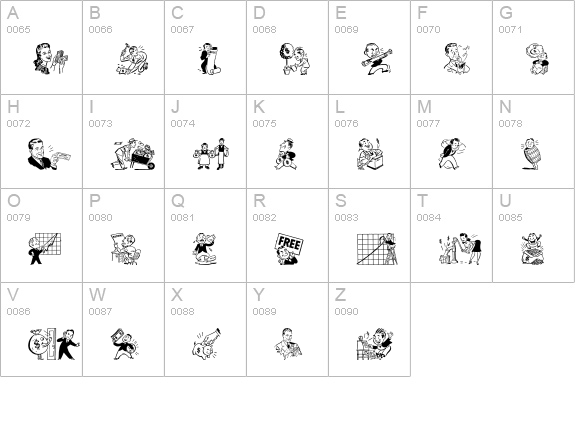
OLDMONEY Font Details
OLDMONEY font is a sophisticated and elegant typeface that exudes a sense of classic charm and refinement. Its timeless and ornate design makes it perfect for luxury branding, high-end invitations, and upscale editorial projects. The intricate details and decorative elements of OLDMONEY font add a touch of vintage glamour to any design. Best of all, OLDMONEY font is available for free download at FontsMarket.com. This means that you can access this stunning typeface at no cost, making it a valuable addition to your font collection. Whether you're working on a project that requires a touch of old-world elegance or simply appreciate the beauty of a well-crafted font, OLDMONEY is sure to impress with its timeless appeal and luxurious aesthetic.